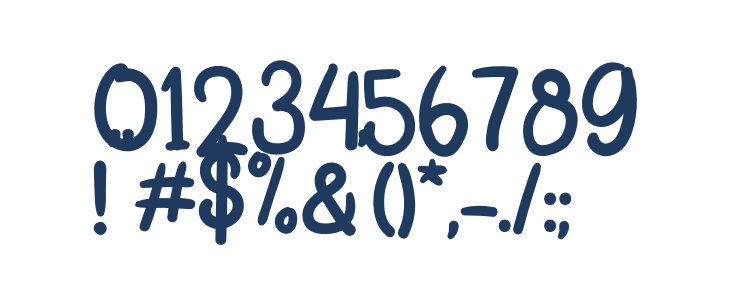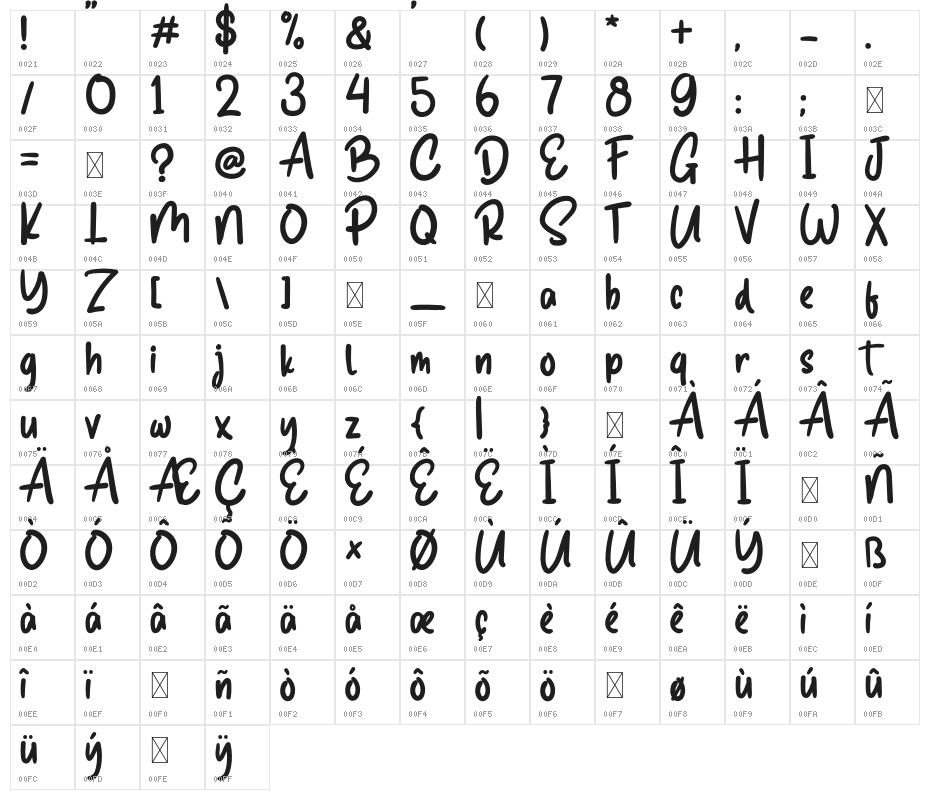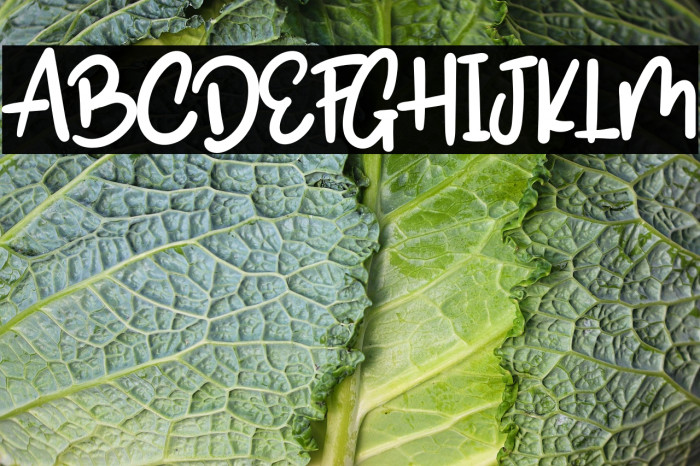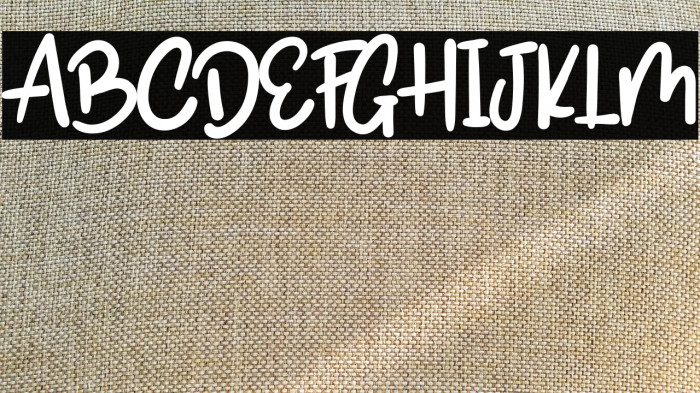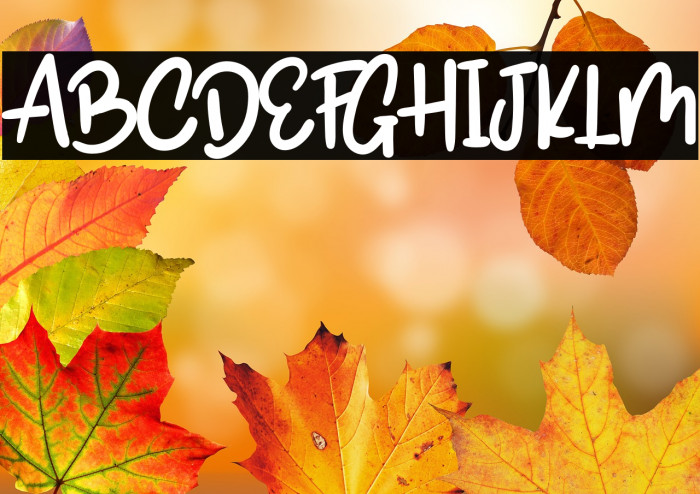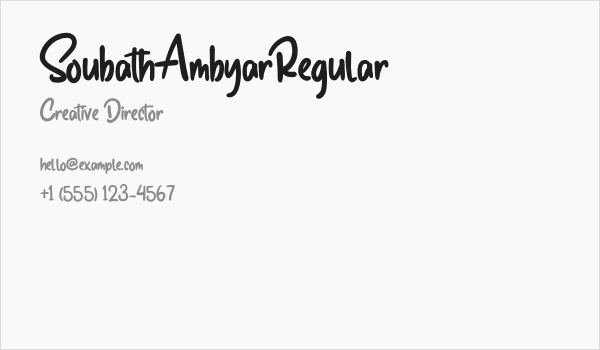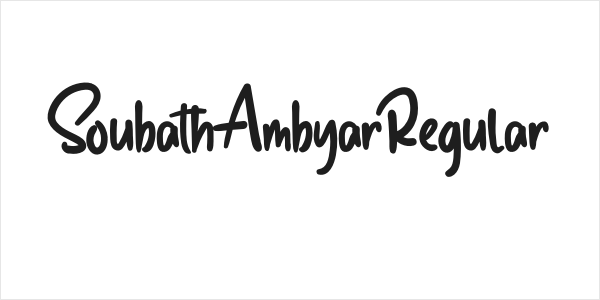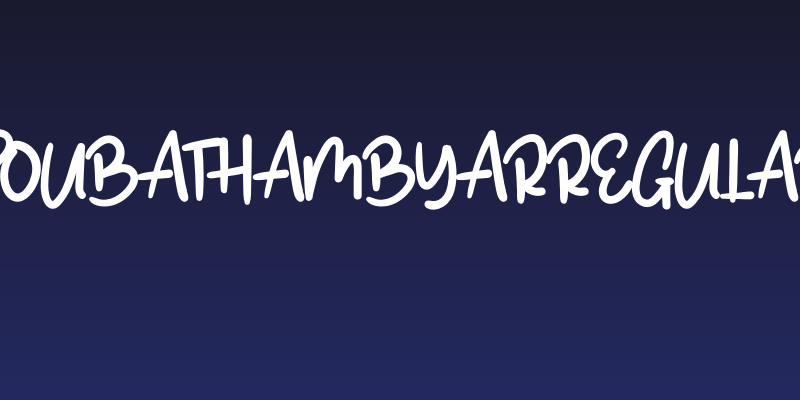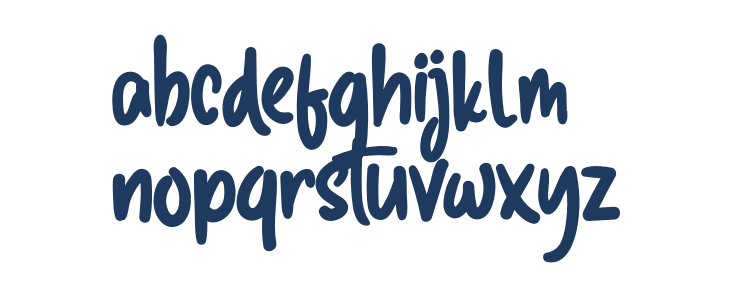
SoubathAmbyarRegular Font
SoubathAmbyarRegular Description
This font features a playful and energetic handwritten style, characterized by its bold and slightly irregular strokes. The uppercase letters are tall and slightly narrow, with a casual flair that adds a sense of movement and dynamism. The lowercase letters maintain this lively aesthetic, with rounded forms and a consistent stroke weight that ensures readability. Numbers and special characters are crafted with the same attention to detail, providing a cohesive look across all elements. The overall appearance is friendly and approachable, making it suitable for projects that require a personal touch.